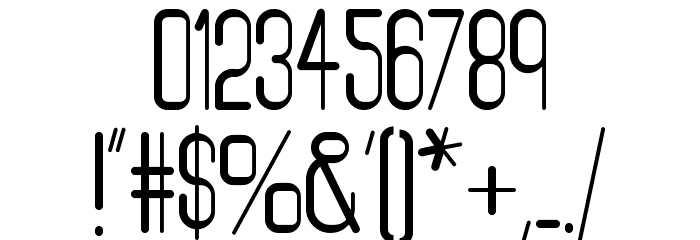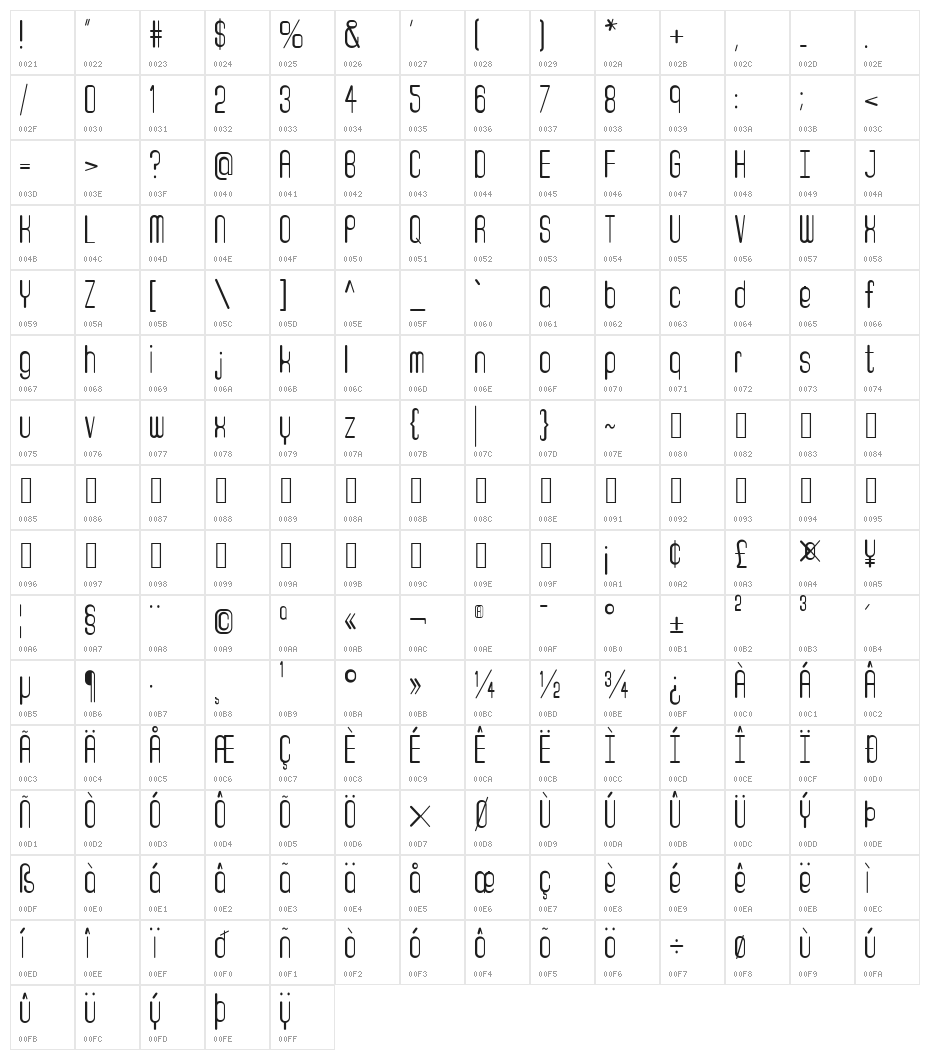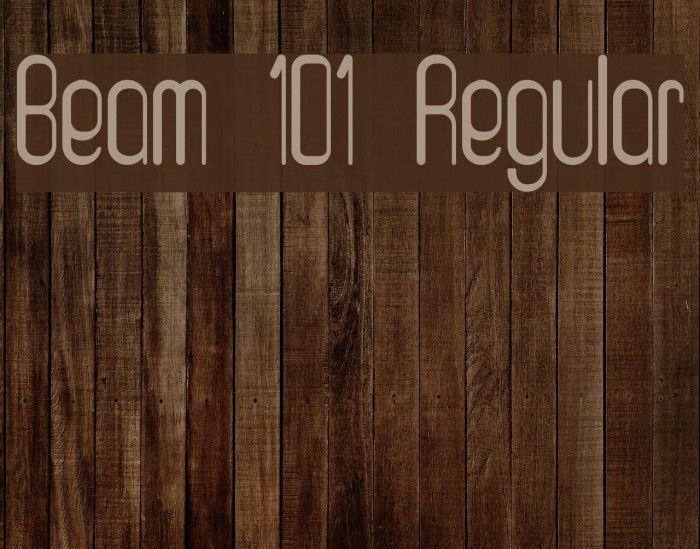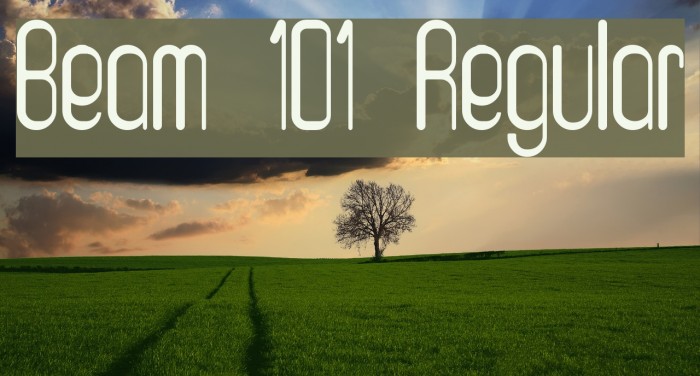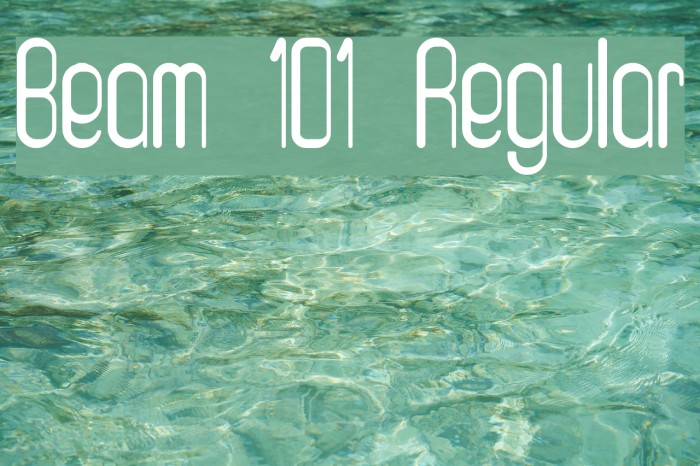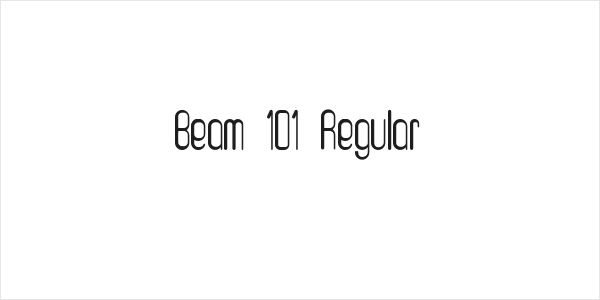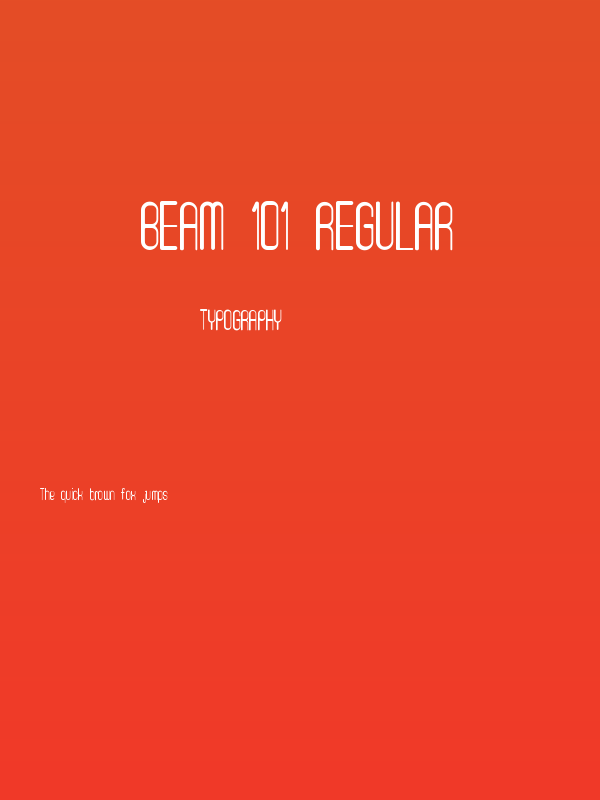
Beam 101 Regular Font
Beam 101 Regular Description
This font features a modern, sleek design with elongated, rounded characters that convey a sense of elegance and sophistication. The uppercase and lowercase letters maintain a consistent height, creating a uniform appearance. The numerals and special characters are designed with the same rounded edges, ensuring a cohesive look across all glyphs. The font's clean lines and minimalistic style make it highly versatile, suitable for a variety of design projects. Its unique character shapes add a touch of personality while remaining legible and functional.